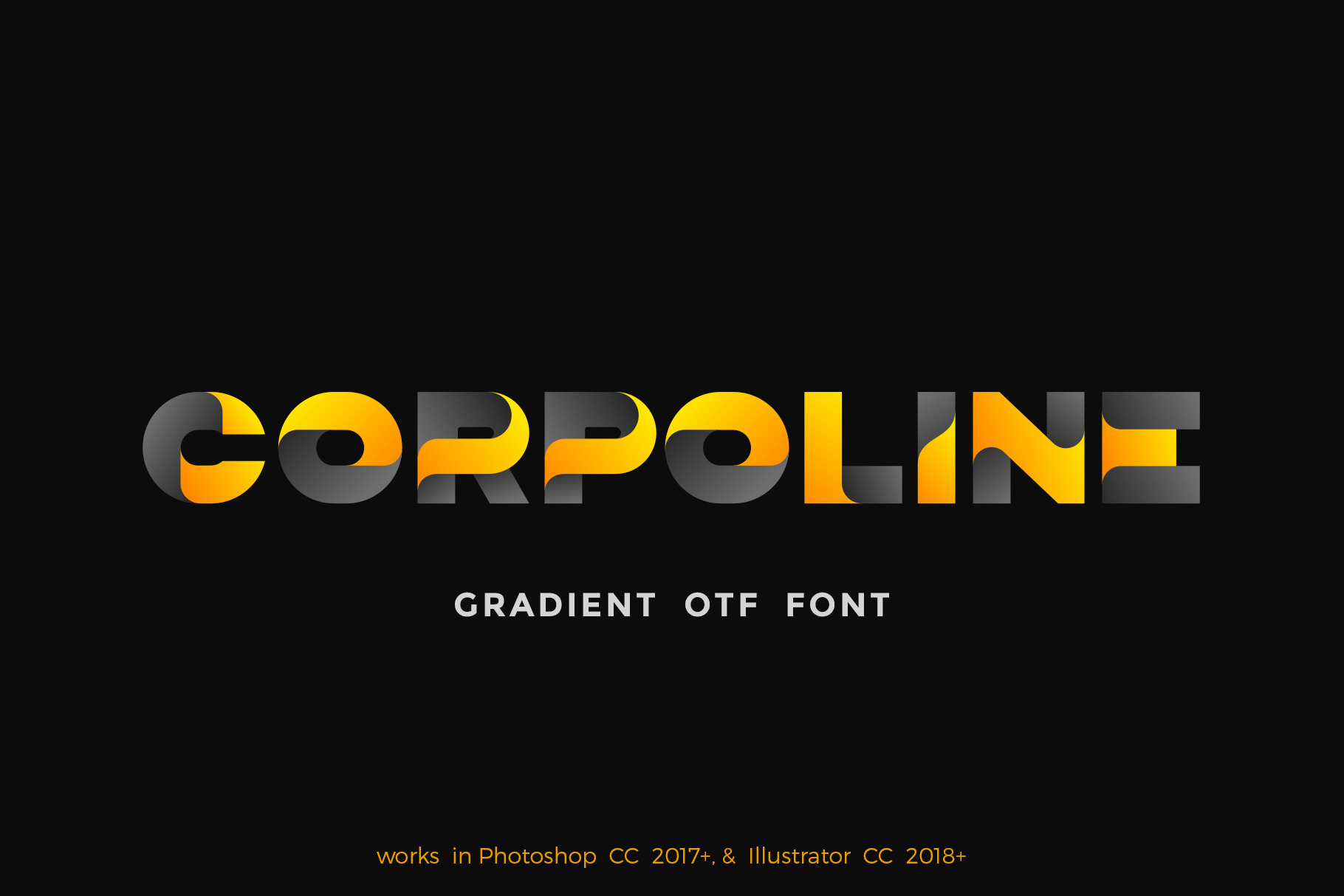
Corpoline Color Gradient OTF Font
Corpoline is corporate ribbon font designed for such areas as Media, Entertainment, Kids, Prints, Food etc. You may play with letters changing theirs colors, position, rotation to make new and interesting font combinations.